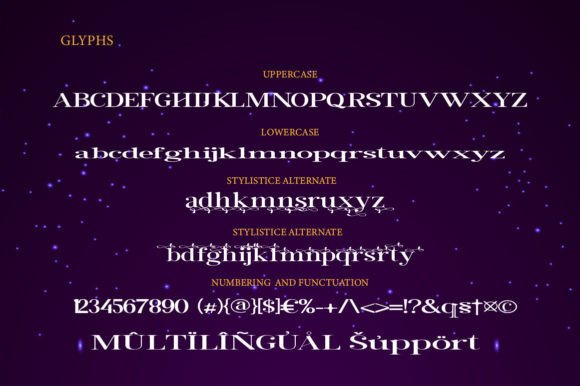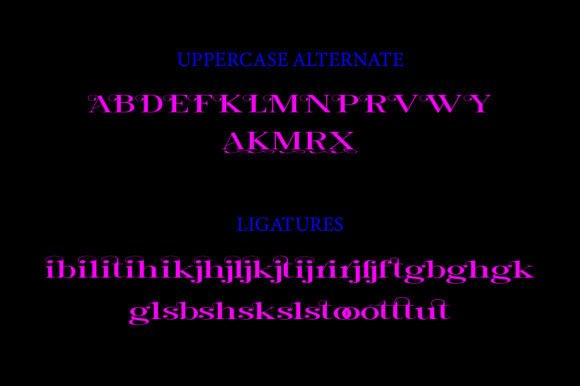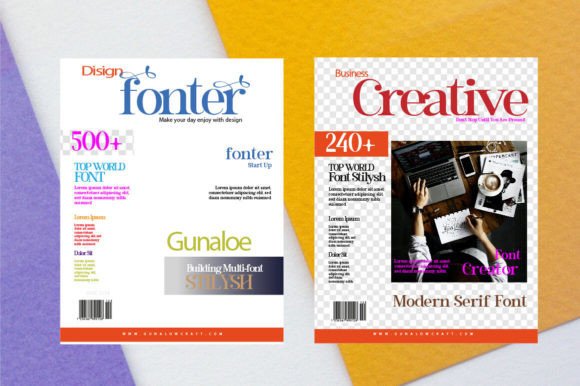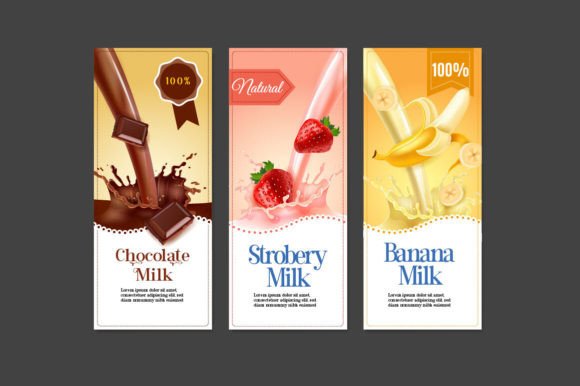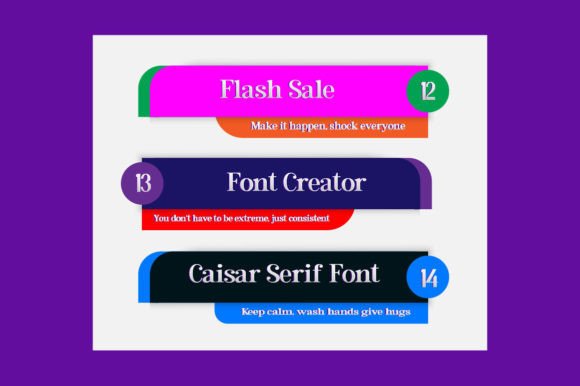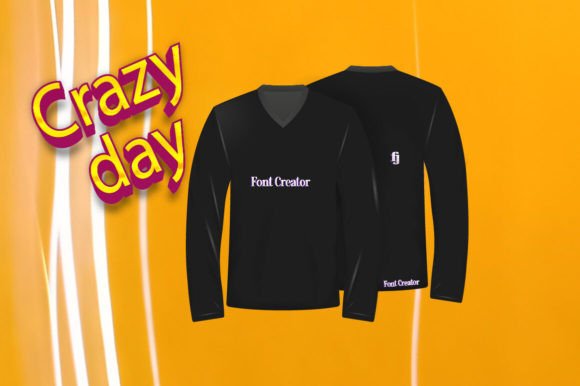
Introducing Caisar Font: Elevate Your Designs with Modern Elegance
In the world of typography, fonts play a crucial role in conveying the tone and aesthetic of a design. For designers and crafters seeking a modern serif font that exudes elegance and sophistication, look no further than Caisar Font. This versatile font is designed to meet the diverse needs of various projects, making it an ideal choice for those who want to add a touch of luxury to their creations.
The Characteristics of Caisar Font
Caisar Font is a modern serif font that boasts a unique blend of fancy and elegant features. Its sleek lines, refined curves, and precise letter spacing make it perfect for a wide range of applications. Whether you’re working on a signature, stationery, logo, or typography quotes, Caisar Font is sure to impress. Its modern design ensures that your creations stand out from the crowd, while its elegant feel adds a touch of sophistication.
Endless Possibilities with Caisar Font
One of the key benefits of Caisar Font is its versatility. This font is ideally suited for a wide variety of projects, including:
- Signature and stationery design
- Logo creation and branding
- Wedding and event planning
- Typography quotes and posters
- Magazine and book covers
- Website headers and digital design
- Clothing and fashion branding
- Packaging design and product labeling
With Caisar Font, you can create stunning designs that capture the essence of your brand or project. Its flexibility and adaptability make it an excellent choice for designers and crafters who want to push the boundaries of their creativity.
Why Choose Caisar Font?
So, what sets Caisar Font apart from other fonts? Here are just a few reasons why designers and crafters love working with this modern serif font:
- Modern and professional look: Caisar Font gives your designs a sleek, modern aesthetic that’s sure to impress.
- Elegant and sophisticated feel: The font’s elegant features add a touch of luxury to your creations, making them perfect for high-end branding and design projects.
- Highly versatile: Caisar Font can be used for a wide range of projects, from digital design to print materials.
- Easy to read and understand: The font’s precise letter spacing and clear typography ensure that your message is conveyed clearly and effectively.
Tips for Using Caisar Font Effectively
To get the most out of Caisar Font, here are a few tips to keep in mind:
- Experiment with font sizes: Caisar Font looks great in a variety of font sizes, from large headings to smaller body text.
- Play with font colors: The font’s elegant features are showcased beautifully in a range of colors, from bold and bright to subtle and muted.
- Pair with complementary fonts: Caisar Font pairs well with a range of fonts, so don’t be afraid to experiment with different combinations.
In conclusion, Caisar Font is a modern serif font that offers a unique blend of elegance and sophistication. Its versatility, flexibility, and adaptability make it an excellent choice for designers and crafters seeking to elevate their designs. Whether you’re working on a branding project, creating a stunning typography quote, or designing a beautiful wedding invitation, Caisar Font is the perfect choice. With its modern and professional look, elegant feel, and endless possibilities, Caisar Font is sure to become a staple in your design toolkit.